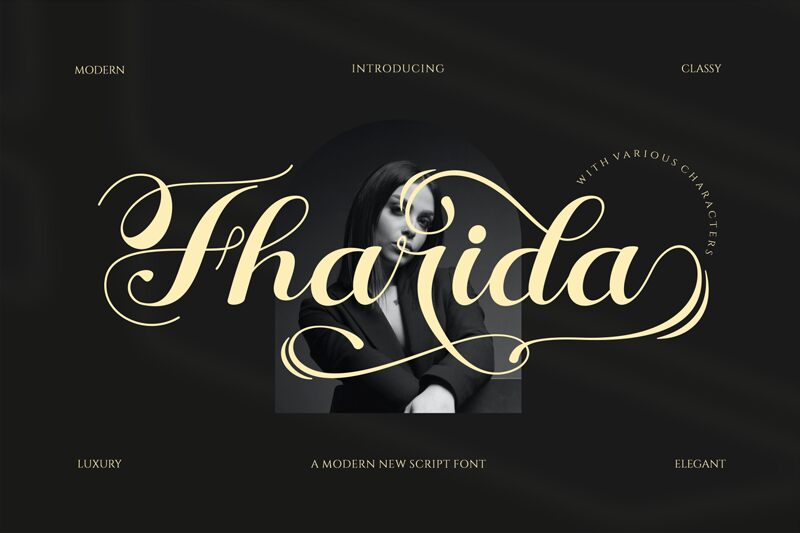
Fharida
Fharida, a mesmerizing calligraphy font by Get Studio, exudes elegance and sophistication. With its semi-light weight and semi-expanded width, Fharida is perfect for projects that demand a delicate balance between subtlety and impact. From wedding invitations to beauty branding, this enchanting typeface gracefully amplifies the charm of any text. Its graceful curves and flowing strokes bring to life a sense of romance and refinement. Whether you're designing elegant logos or crafting captivating headlines, Fharida adds a touch of class to your creative endeavors that will leave a lasting impression.